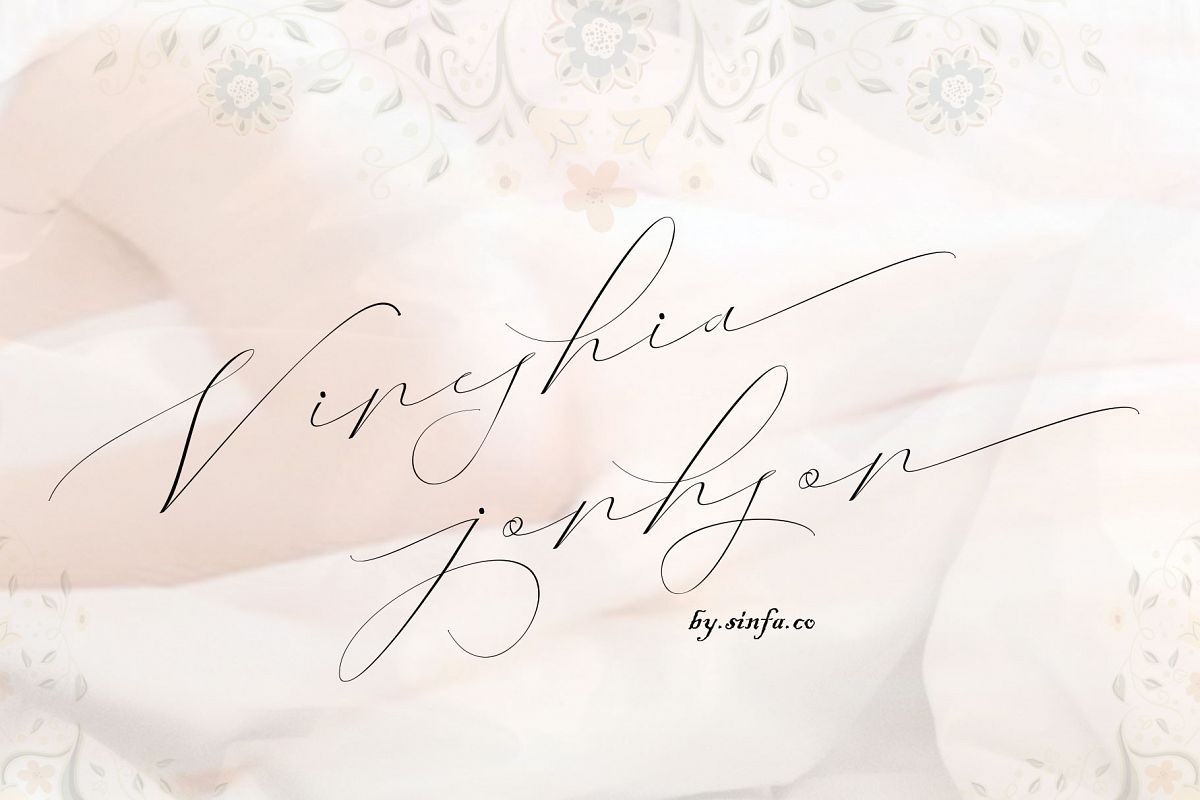
Vineshia Jonhson
Something beautiful does require extra energy to realize it !!! This Vineshia Jonhson font is very tiring in its work but now you only need a few minutes in an instant to make various crafts that you are working on, which allows you to work on various types of typography you need to get beautiful hands made in a short time.With some interesting initial and final forms, the Vineshia Jonhson font suits your needs in creating logos, invitations, cards, product packaging, headers, and whatever you want.You will be very satisfied with the presence of attractive replacement letters, where you can make according to the shape you expect, Vineshia Jonhson fonts are equipped with a number of small letters including swash that you can use to realize a hand job that suits your imagination.you will get:Vineshia Jonhson TTF file, Vineshia Jonhson OTF,file, Vineshia Jonhson sweshes OTF file Vineshia Jonhson sweshes TTF files.I really hope you will get special satisfaction in using this font ....THANK YOU...!!!!!! Sinfa.co